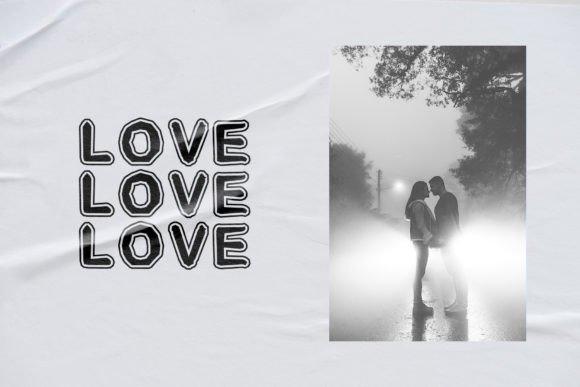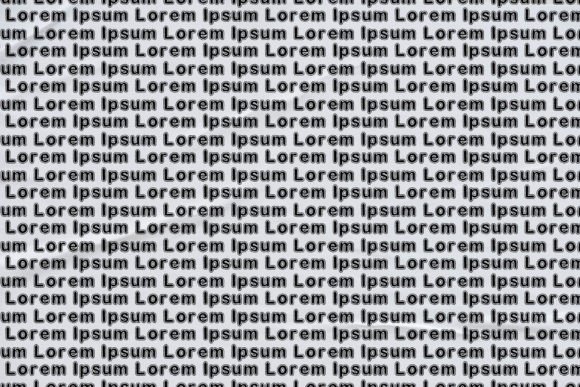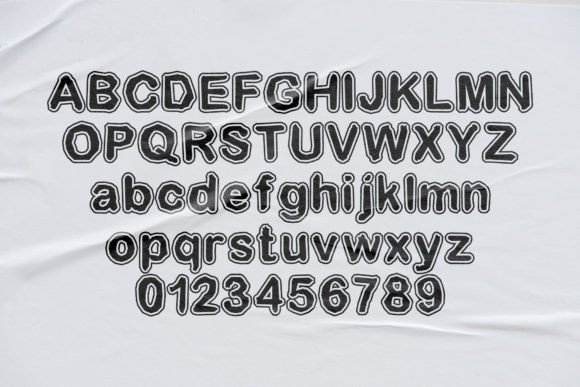
Introduction to Selesai Tarawih Font
Have you ever been working on a creative project, pouring your heart and soul into it, only to realize that something’s missing? For designers, this can be a frustrating experience, especially when it comes to finding the perfect font to bring their ideas to life. That’s where Selesai Tarawih Font comes in – a fun and quirky handwritten display font that can add a touch of whimsy to your designs.
With its unique style and playful flair, Selesai Tarawih Font is a valuable addition to any designer’s toolkit. Whether you’re working on a high-quality design project or simply looking for a creative resource to elevate your craft, this font is sure to deliver. Plus, with a transparent background and free download available, it’s an accessible design resource that won’t break the bank.
Key Features of Selesai Tarawih Font
- High-quality design resource ideal for creative projects, such as Islamic-themed artwork and designs.
- Features a unique, elegant design with a transparent background, allowing for versatility in design applications.
- Perfect for use in digital and print-based creative projects, including posters, flyers, and social media graphics.
Honest Review: Selesai Tarawih Font
As a designer, I’m always on the lookout for high-quality design resources to elevate my creative projects. Recently, I stumbled upon the Selesai Tarawih Font, and I’m excited to share my honest review.
- The font has a beautiful, elegant design that would be perfect for a variety of creative projects, from wedding invitations to Islamic-inspired art.
- The Selesai Tarawih Font is limited to a single style, which may not be suitable for designers who need a range of font options.
Overall, I’m impressed with the Selesai Tarawih Font. Its high quality and elegant design make it a valuable resource for any designer working on a creative project. While it has some limitations, it’s an excellent choice for designers on a budget or those looking for a unique font to add some flair to their designs.
The Selesai Tarawih Font is perfect for a variety of design projects, including:
- Islamic-themed designs and posters.
- Celebration and event invitations.
- Wedding and graduation announcements.